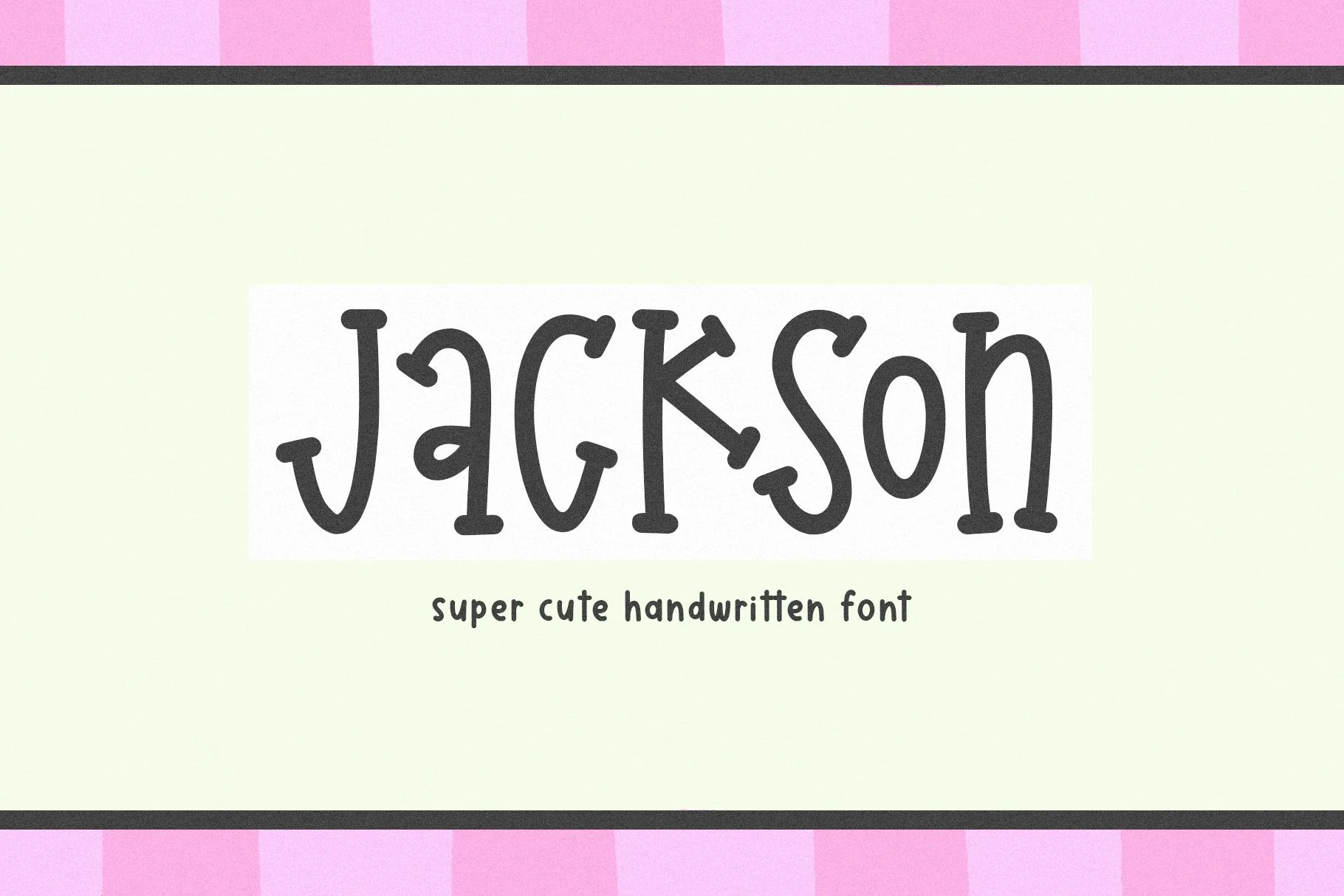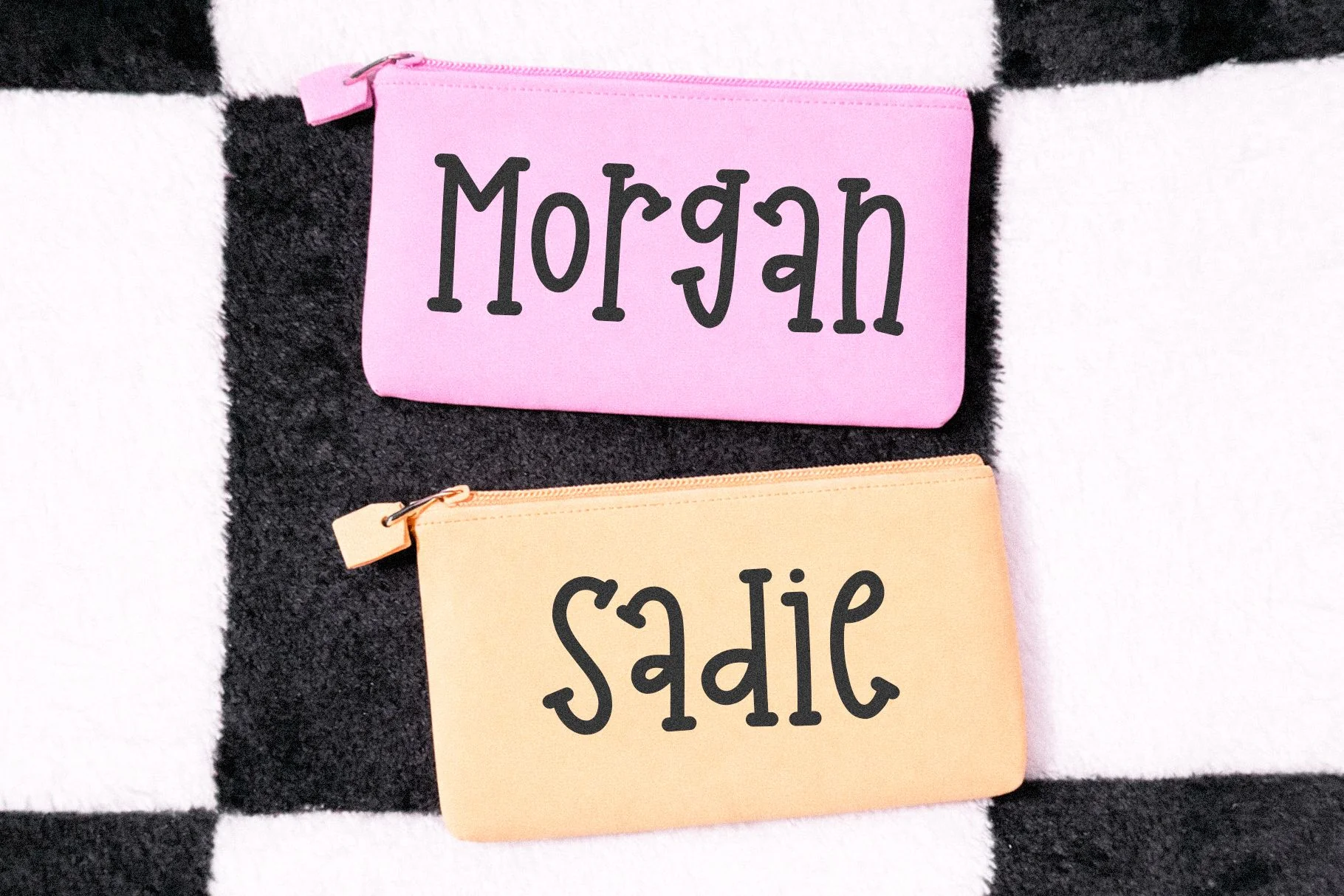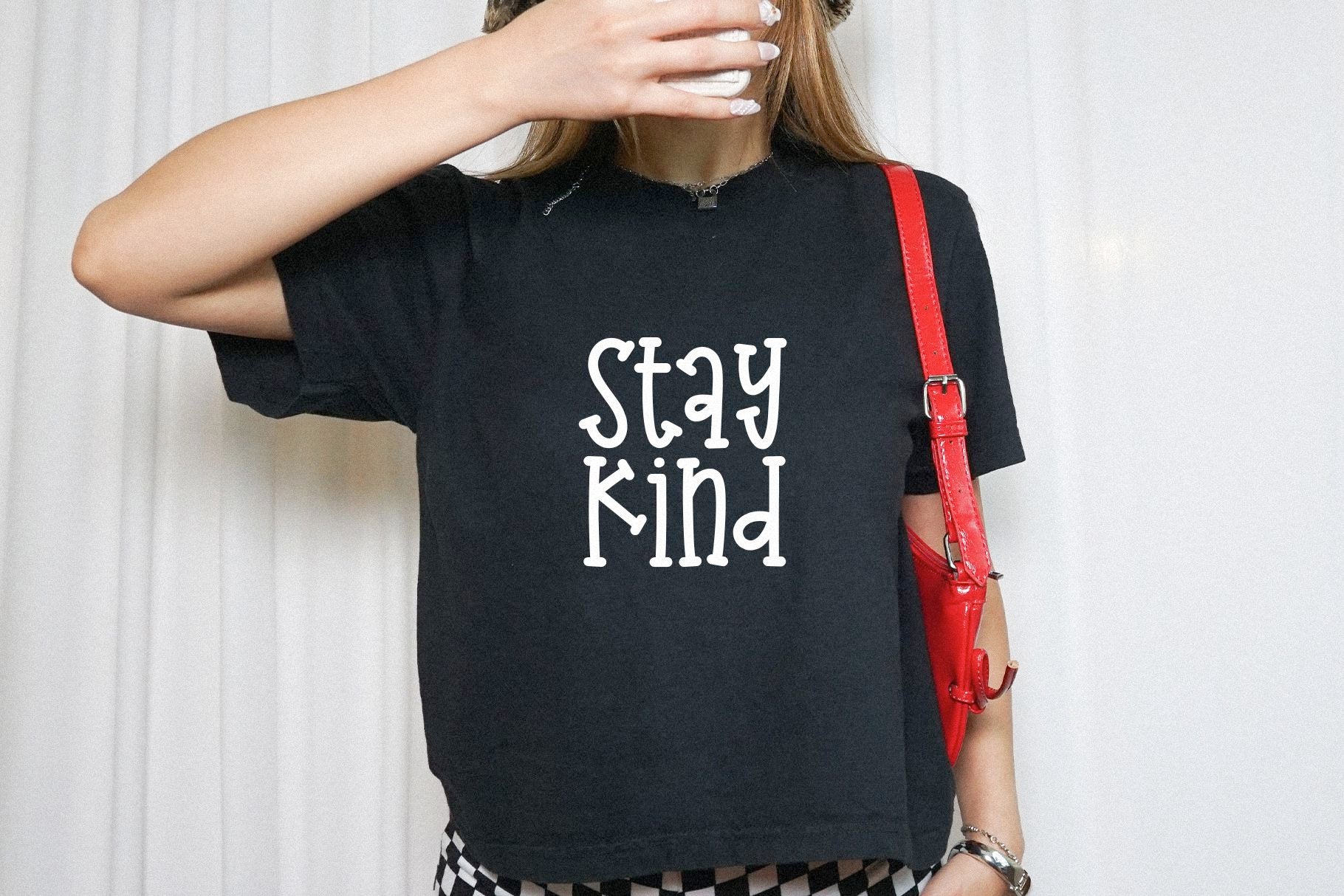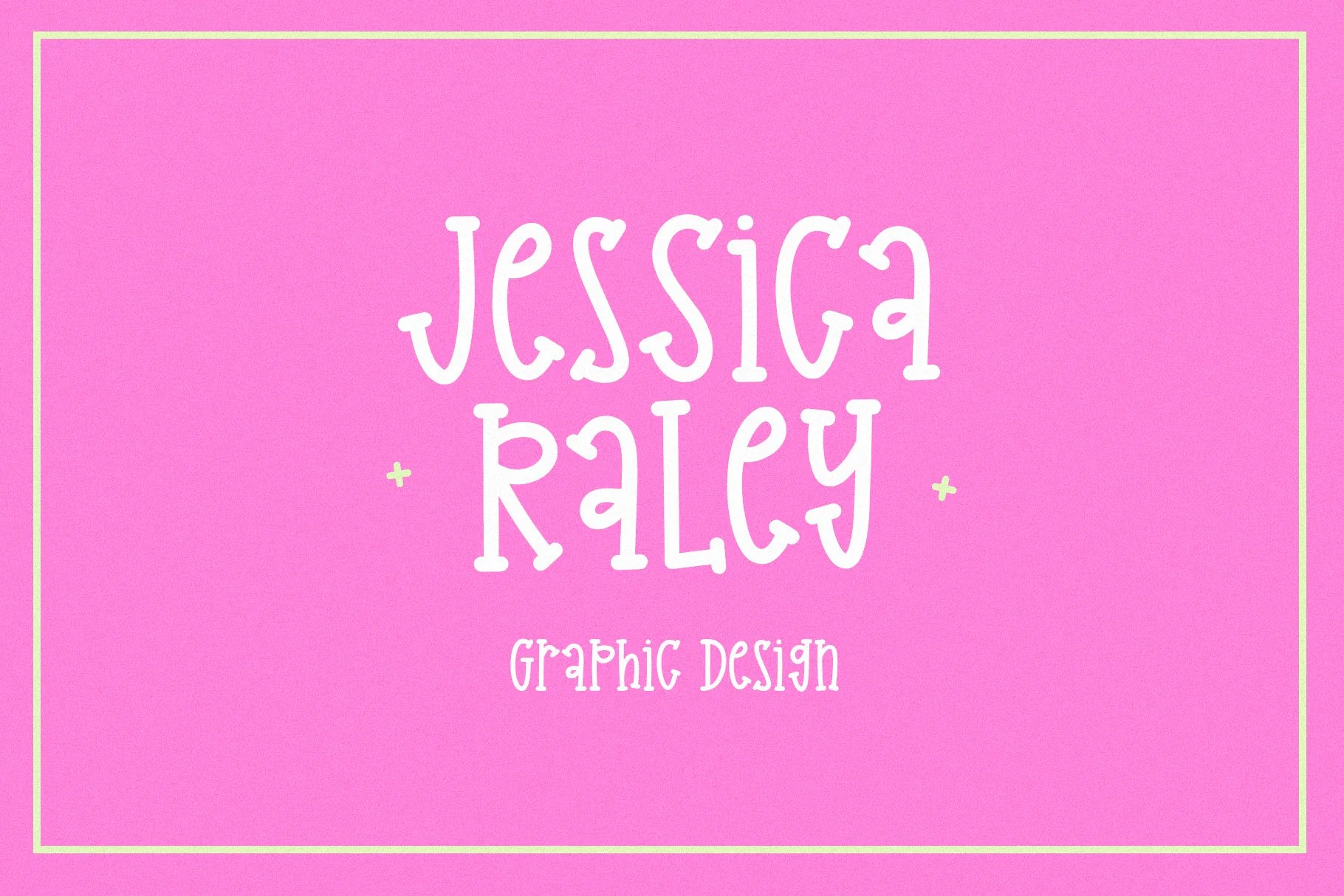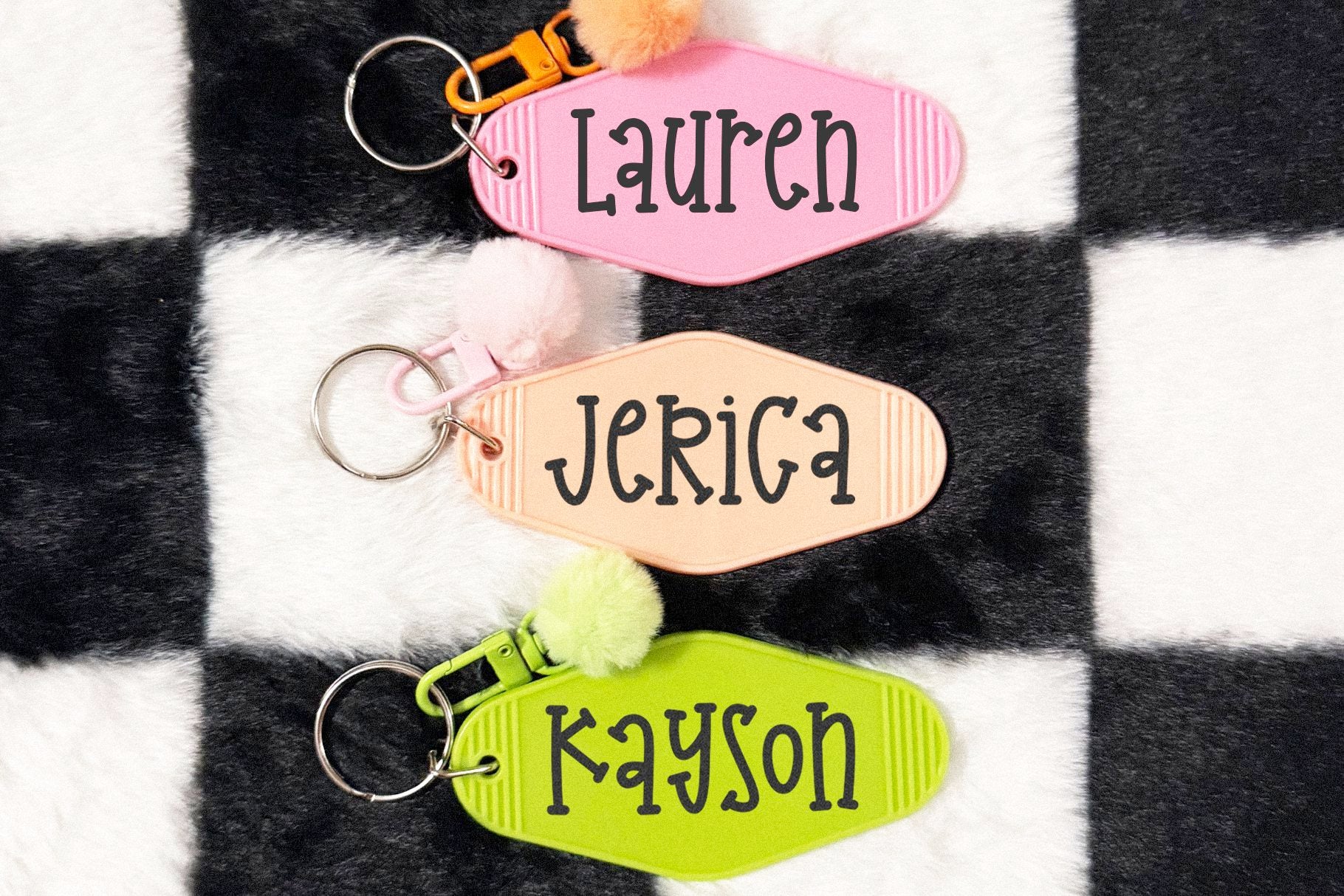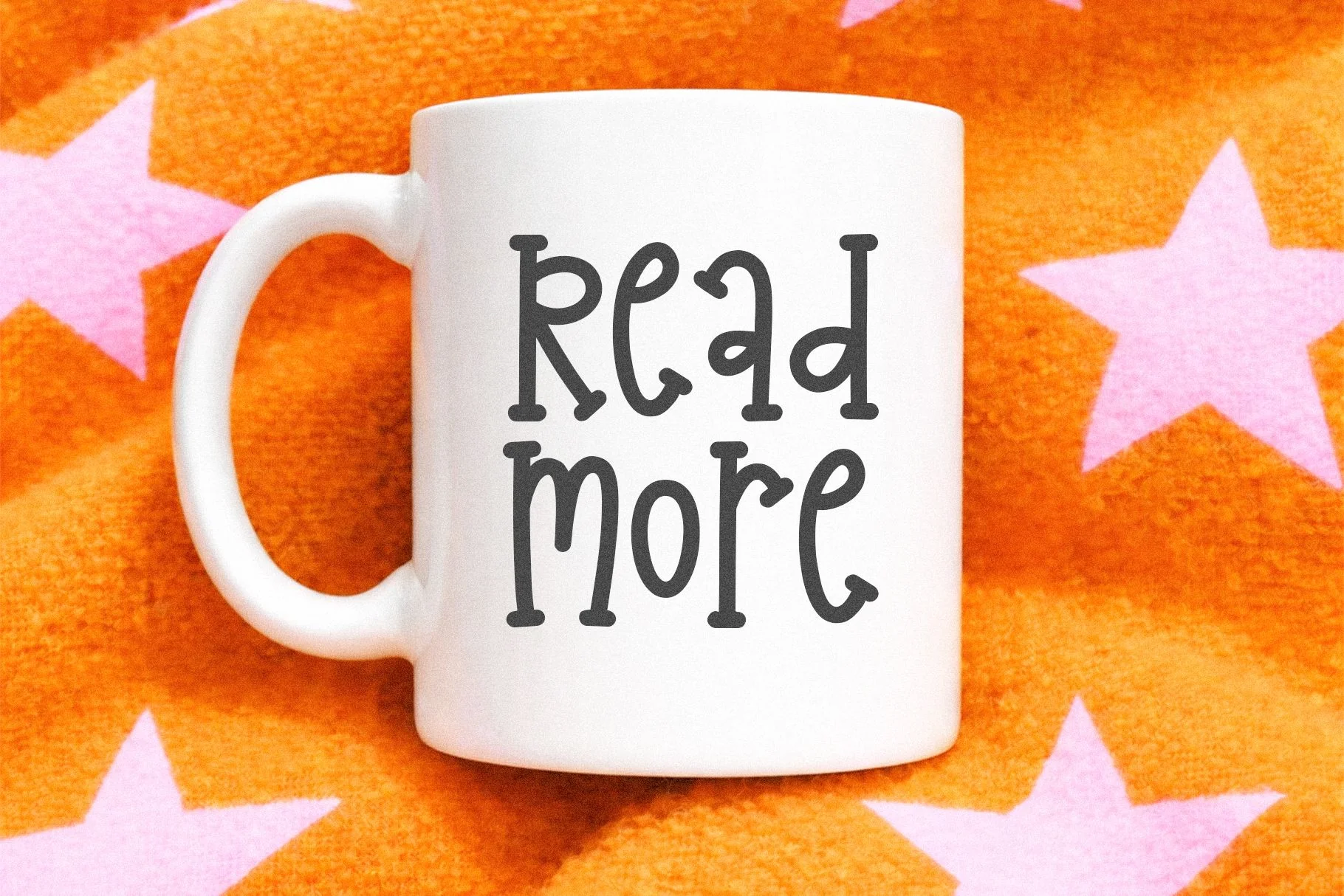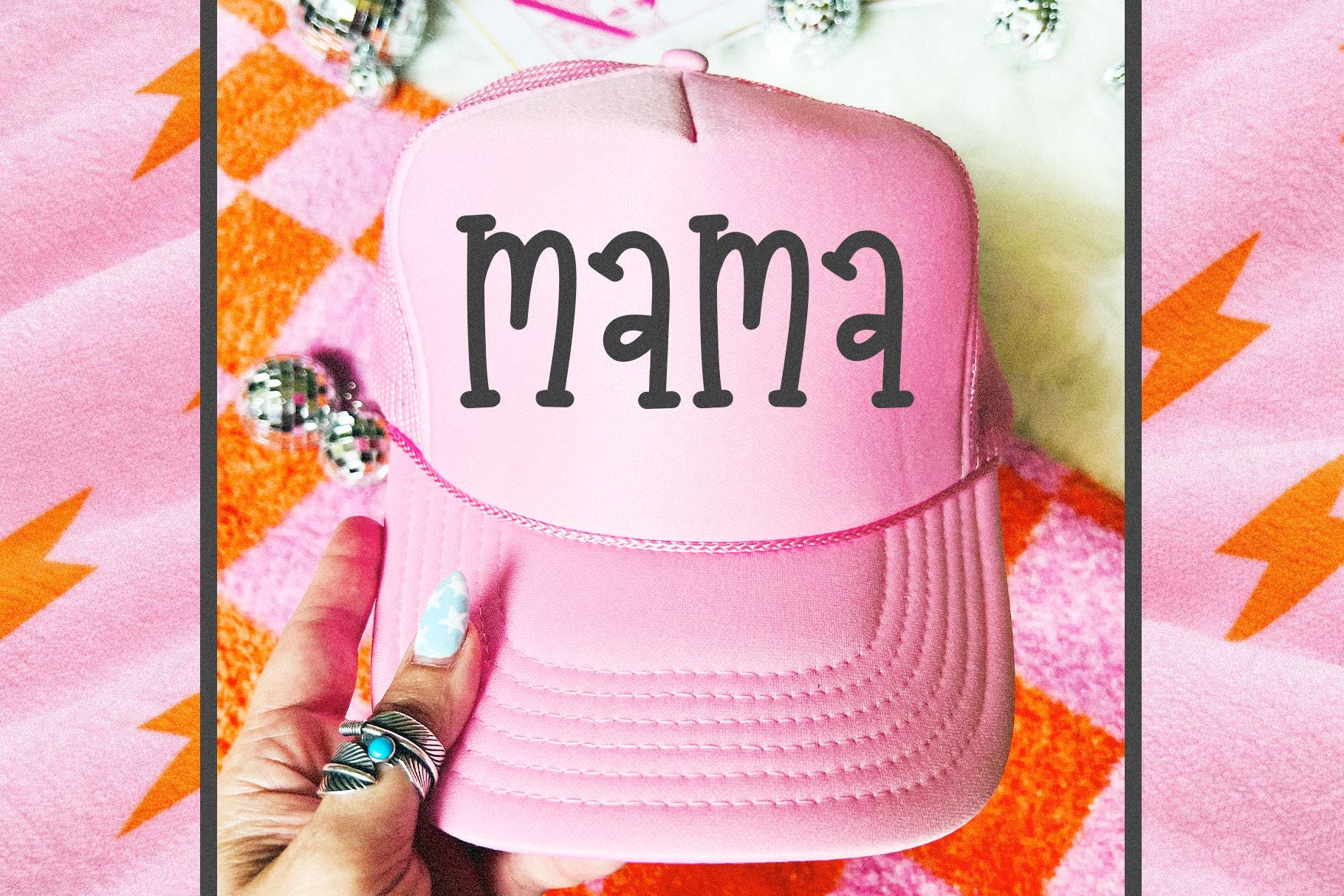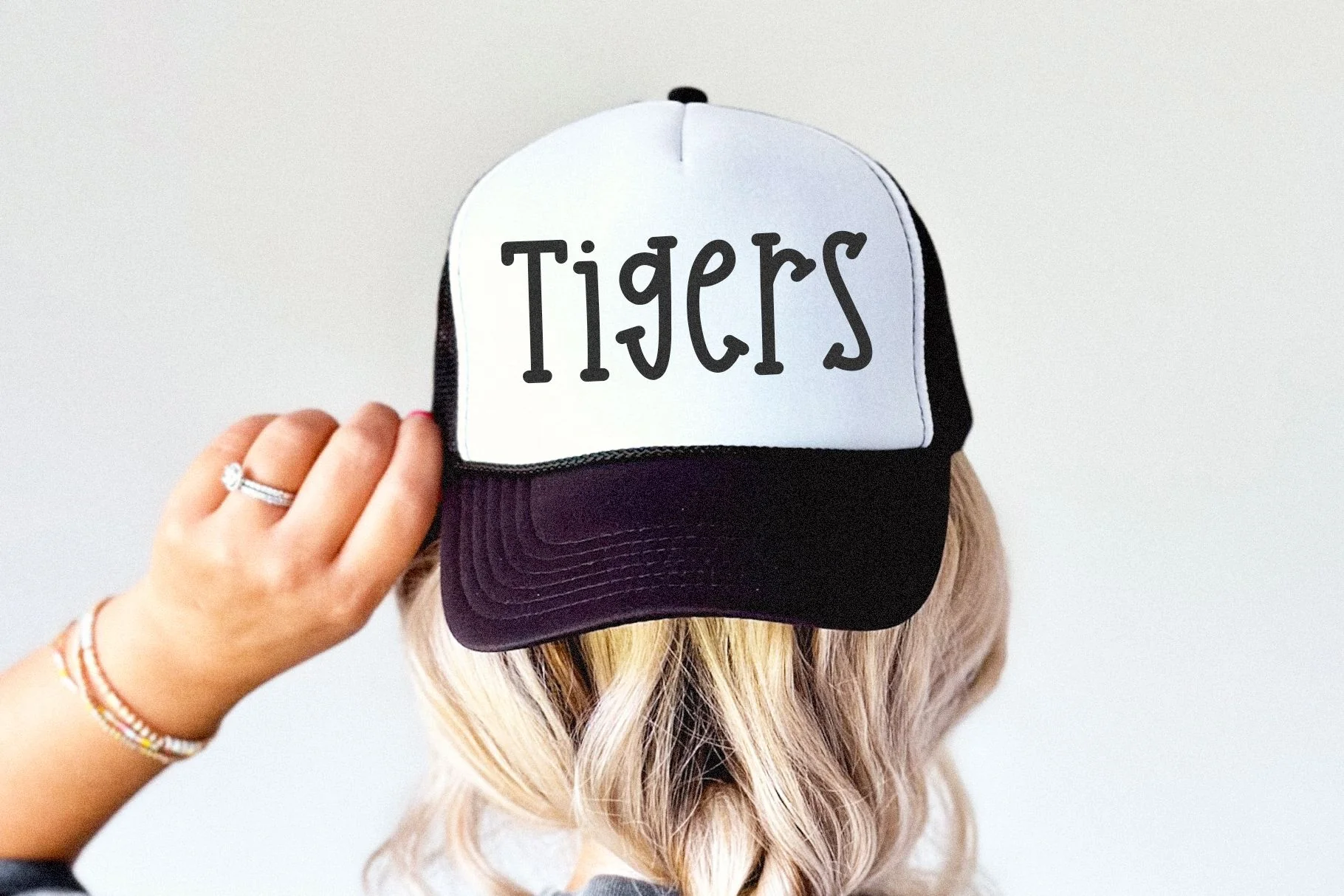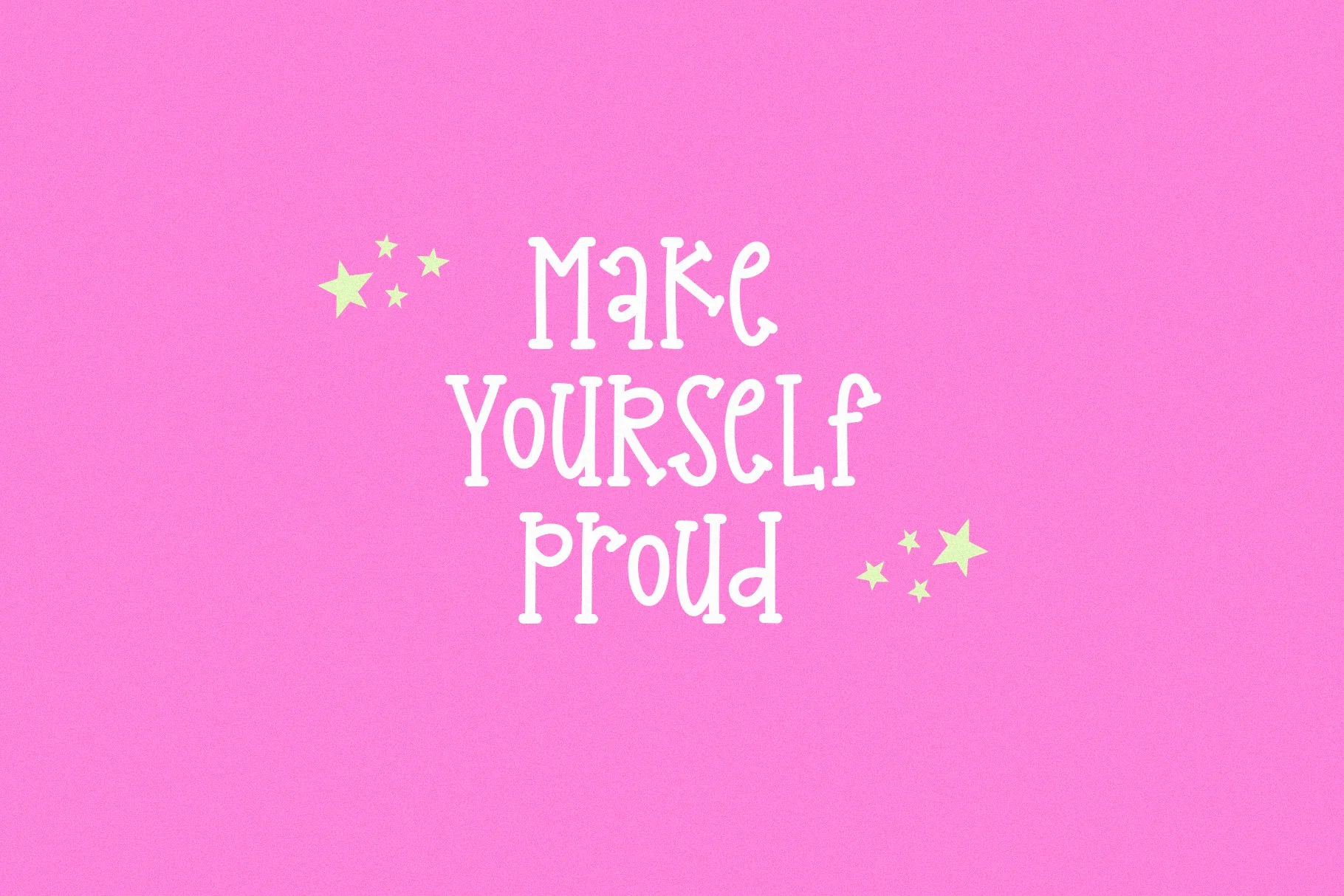
Jackson - Cute Handwritten Font
Jackson is a cute and quirky handwritten font!
This font is perfect for cricut projects, logos, banners, shirts, svg files, planners, stickers, quotes, social media and more!